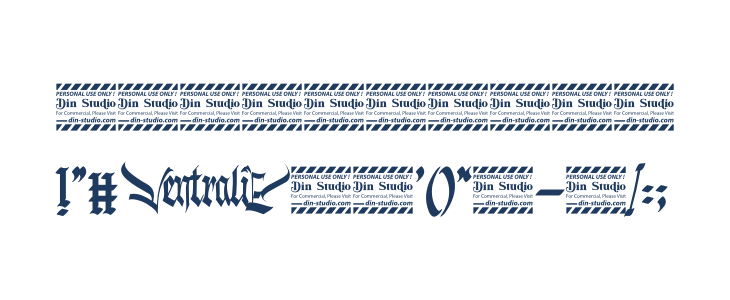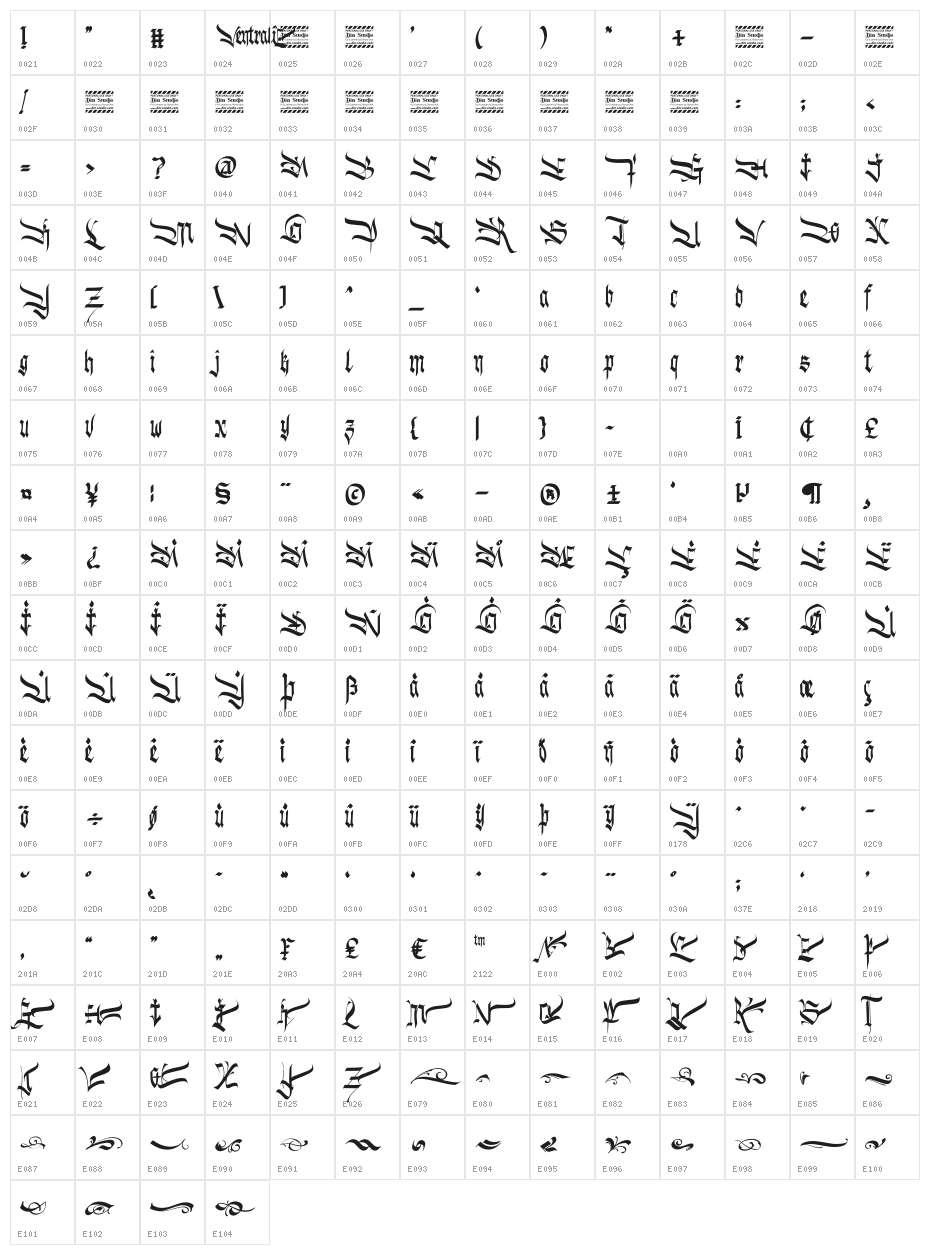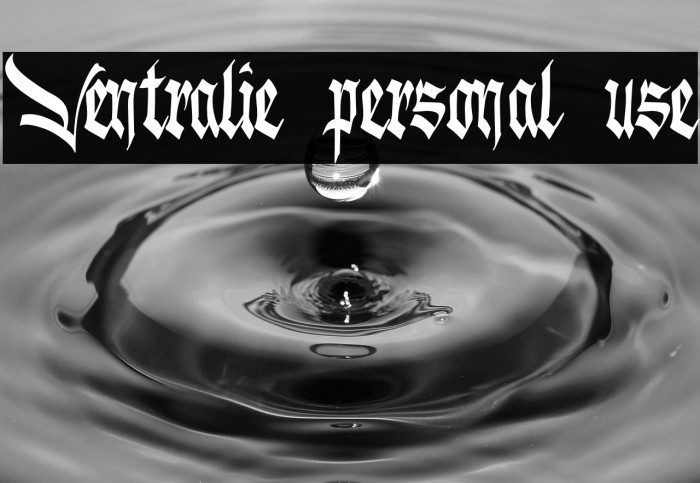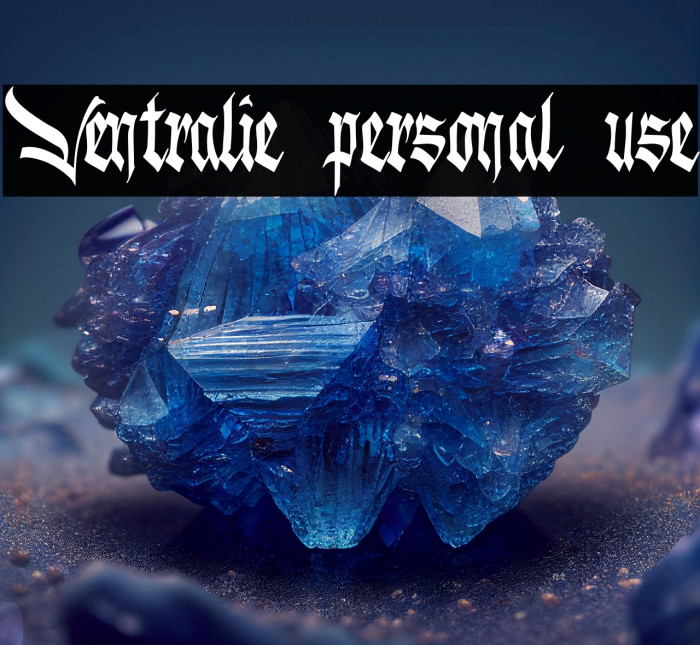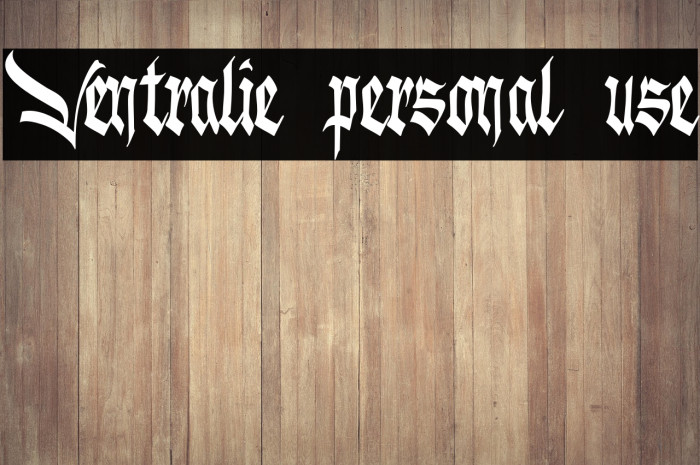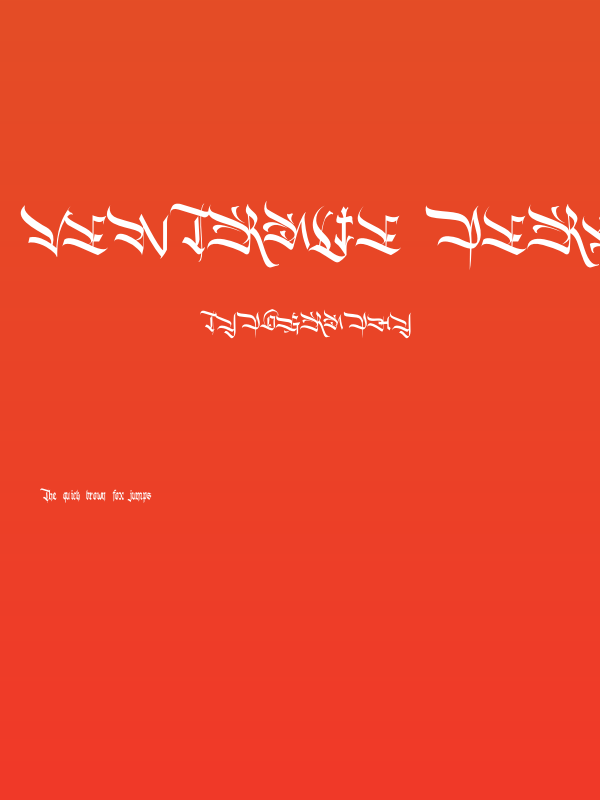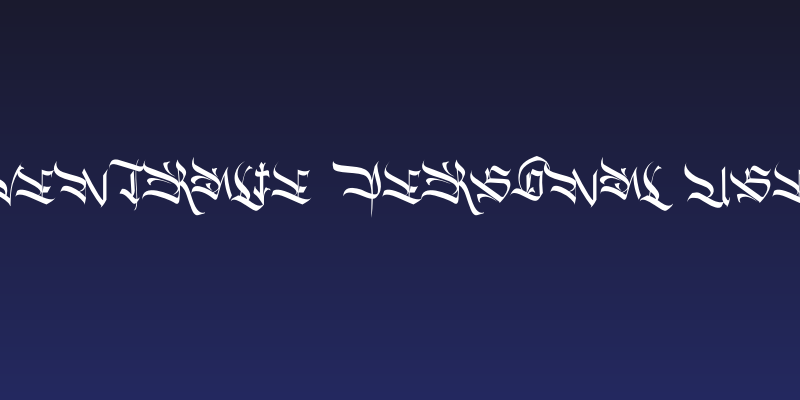
Ventralie personal use Font
Ventralie personal use Description
This font features a striking blackletter style, characterized by its sharp, angular lines and intricate detailing. The uppercase letters are highly stylized, with dramatic flourishes that give them a gothic appearance. The lowercase letters maintain the same aesthetic, offering a cohesive look throughout. The numerals and special characters are equally ornate, fitting seamlessly with the overall design. This font is ideal for projects that require a bold, historical, or medieval feel, such as themed event invitations, book covers, or branding for niche markets.
| Overall Style | Gothic, Medieval |
| Use Case | Headlines, Logos, Decorative |
| Proposed Projects | Ideal for themed event invitations, book covers, or niche market branding. |